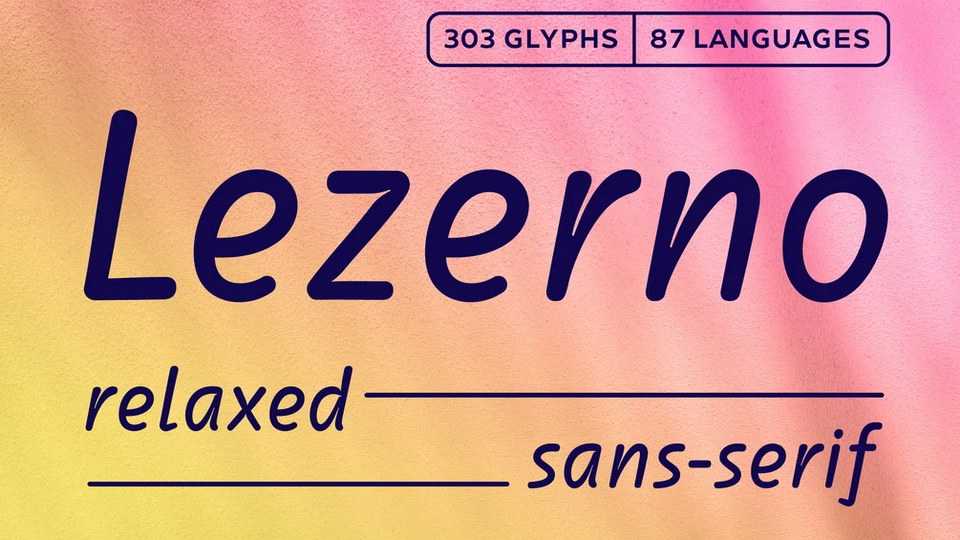
Download Lezerno font, a relaxed-looking sans serif typeface with the strong influence of classy handwriting. Lezerno is the perfect mix of natural, easy-going hand move and refined elegance.
Designer: Igor Petrovic